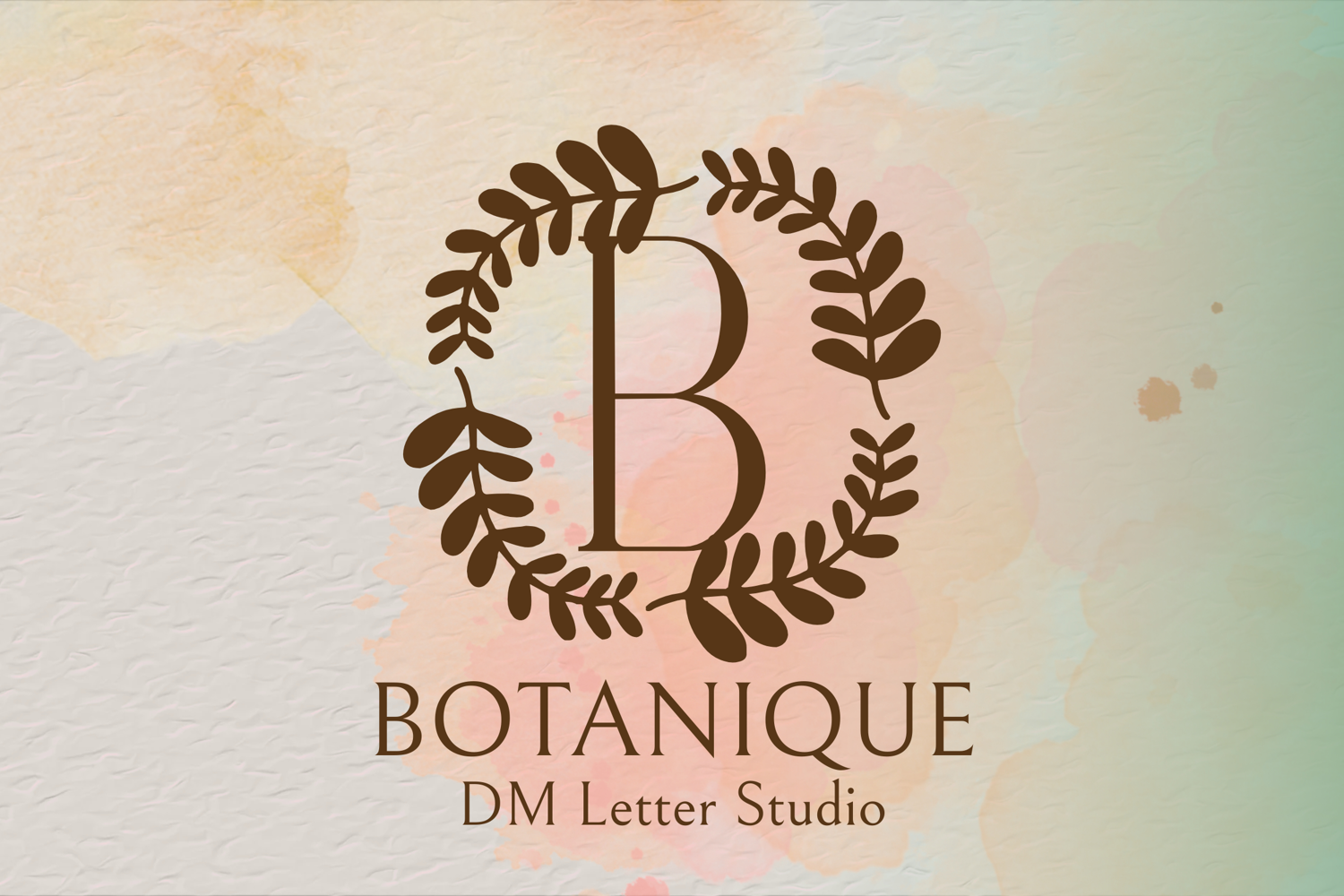
Botanique Monogram - Botanical Serif Monogram Font
Botanique Monogram
Botanique Monogram – Botanical Serif Monogram Font
Botanique Monogram is an elegant serif font infused with natural beauty and delicate botanical flourishes. Each uppercase letter is thoughtfully adorned with hand-drawn leaves and vines, making it the perfect choice for sophisticated monograms, eco-luxe branding, wedding suites, and personalized designs that celebrate organic charm and timeless style.
• Botanical Embellishments: Every capital letter includes intricate leaf and vine illustrations for a refined natural touch.
• Classic Serif Form: Strong serif base combines tradition and modernity for a versatile aesthetic.
• Ready for Monograms: Ideal for initials, name logos, or decorative branding elements.
• Ideal For: Wedding monograms, eco-conscious branding, custom gifts, stationery, packaging, and nature-inspired designs.